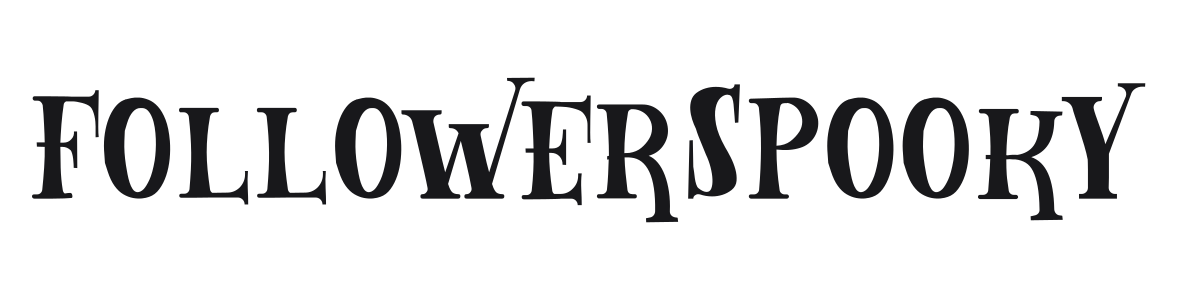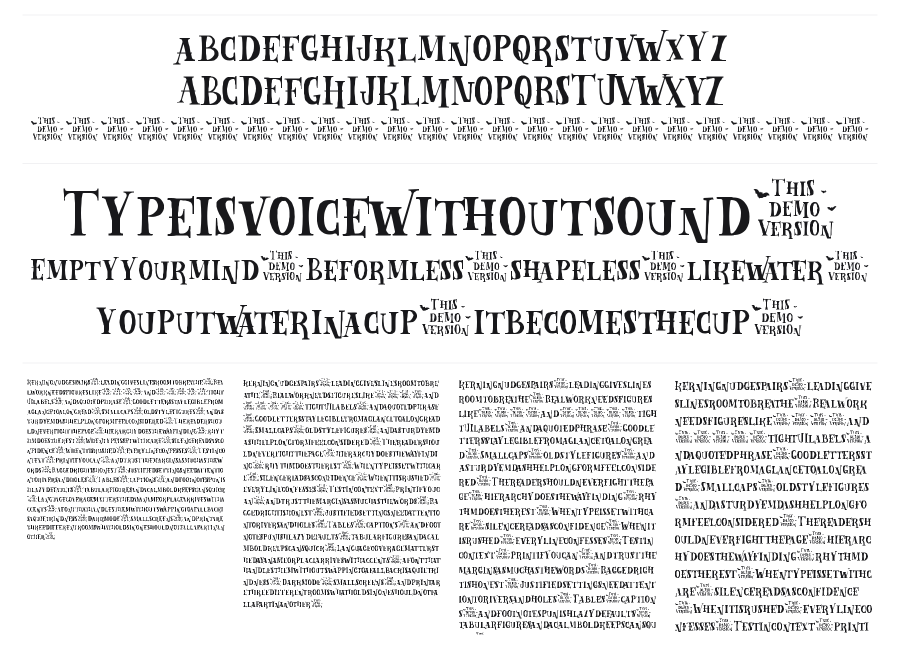
Follower Spooky
Follower Spooky is a Halloween display serif with tall, condensed proportions and sharp high-contrast strokes drawn from Gothic and Victorian horror traditions. The characters carry an intentionally unsettling irregularity, with pointed terminals and exaggerated vertical stress that feel pulled straight from an old carnival poster or haunted house marquee. A strong choice for seasonal branding, event promotions, or any project leaning into theatrical darkness.